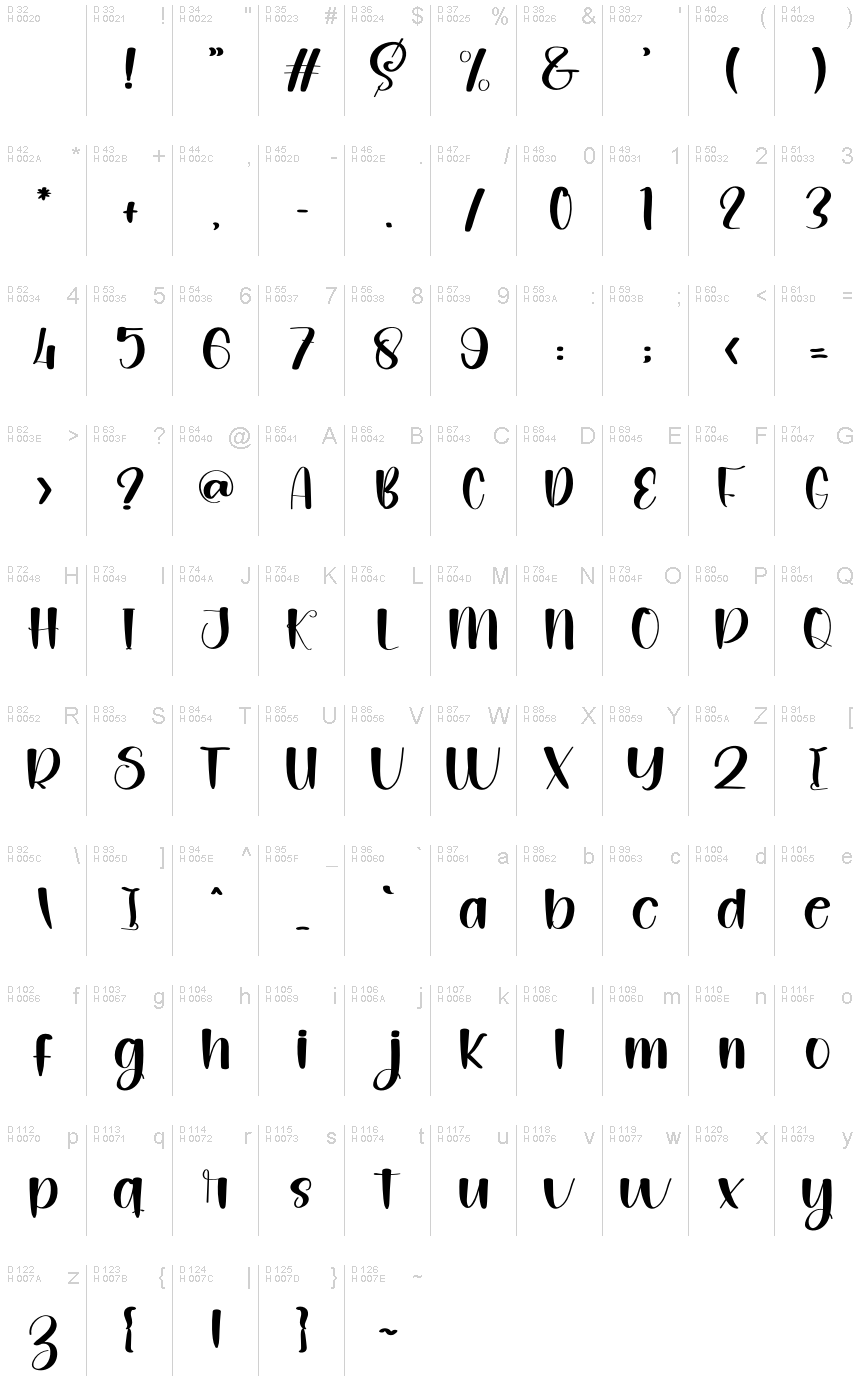
Digital Planner
The Digital Planner font by FreshtypeINK captivates with its effortless charm and organic elegance. This handwritten typeface exudes a sense of warmth and personality, inviting the viewer to engage with its natural flow and expressive strokes. The balanced interplay of thick and thin lines, combined with the subtle variations in letter shapes, lend an authenticity that evokes the personal touch of the human hand.
Versatile in its applications, the Digital Planner font shines in projects that require a touch of artistry and individuality. From heartfelt greeting cards and invitations to stylish branding and packaging design, this font effortlessly bridges the gap between the digital and the handcrafted, creating a captivating visual experience that resonates with audiences.